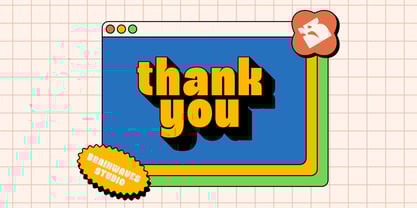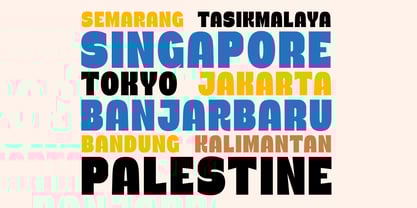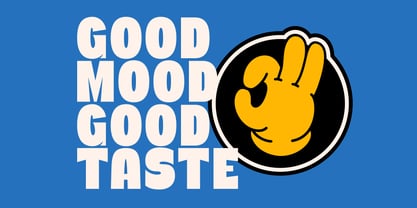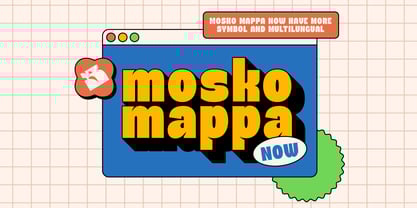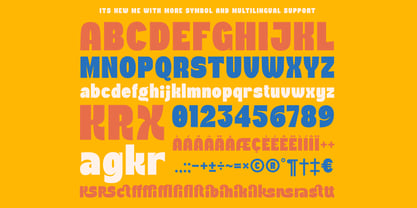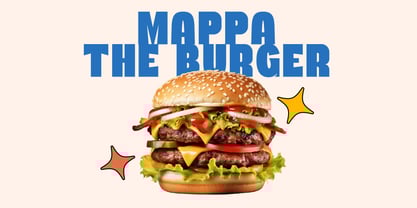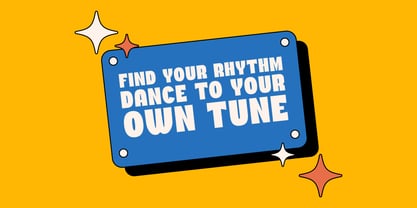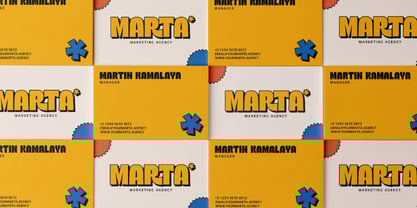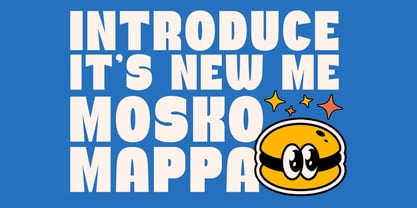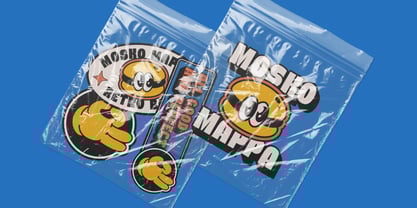
Mosko Mappa Now
by Brainwaves Studio
The Mosko Mappa Now Font Family was designed by Elhaq Farid and published by Brainwaves Studio. Mosko Mappa Now contains 2 styles and family package options.
MOSKO MAPPA NOW – Bold Retro Charm with a Fresh Twist!
Step into the bold and vibrant world of Mosko Mappa Now! Inspired by retro typography with a modern touch, this chunky display font is perfect for designs that demand attention.
Now with new character additions and improved multilingual support, it’s more versatile than ever!
Mosko Mappa now has more advantages!
• Bold & Playful Font Design: Perfect for making strong, stylish statements.
• Retro Meets Modern Font Design: Vintage-inspired with a fresh, contemporary feel.
• New Ligatures & Alternates: Unlock dynamic typography combinations.
• Expanded Multilingual Support: Communicate your message globally.
• Versatile Usage: Ideal for branding, posters, packaging, and more!
Upgrade your designs with Mosko Mappa Now – because bold typography never goes out of style!